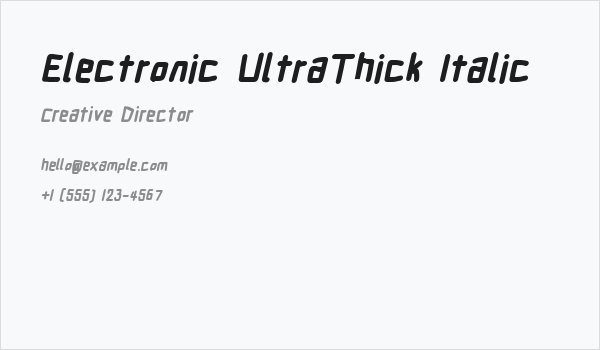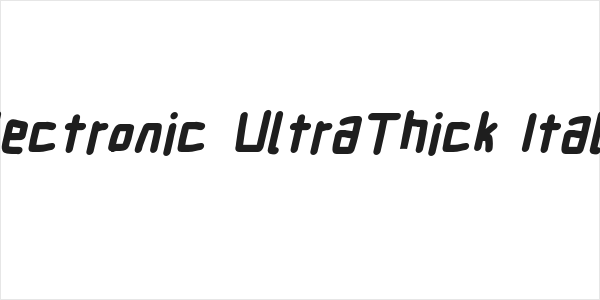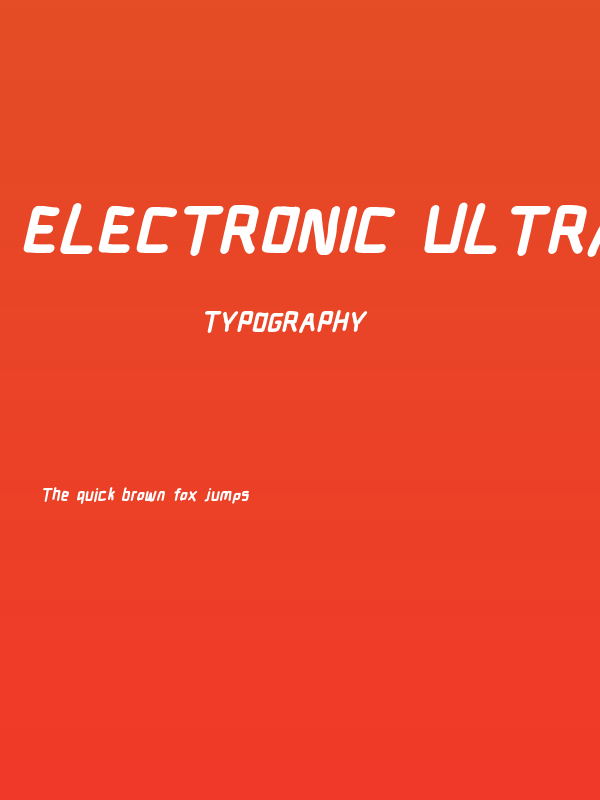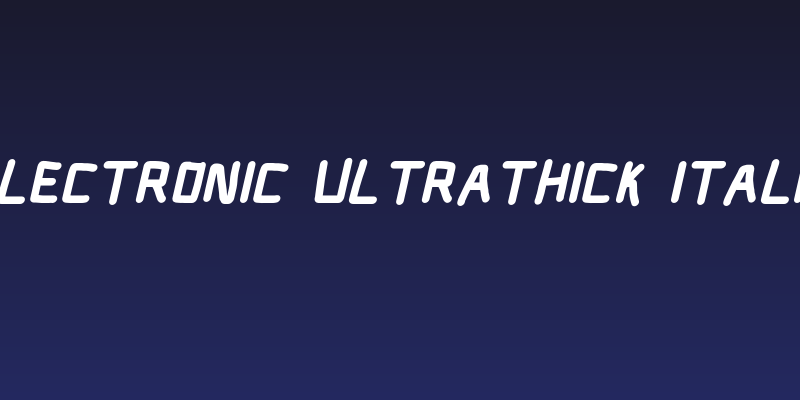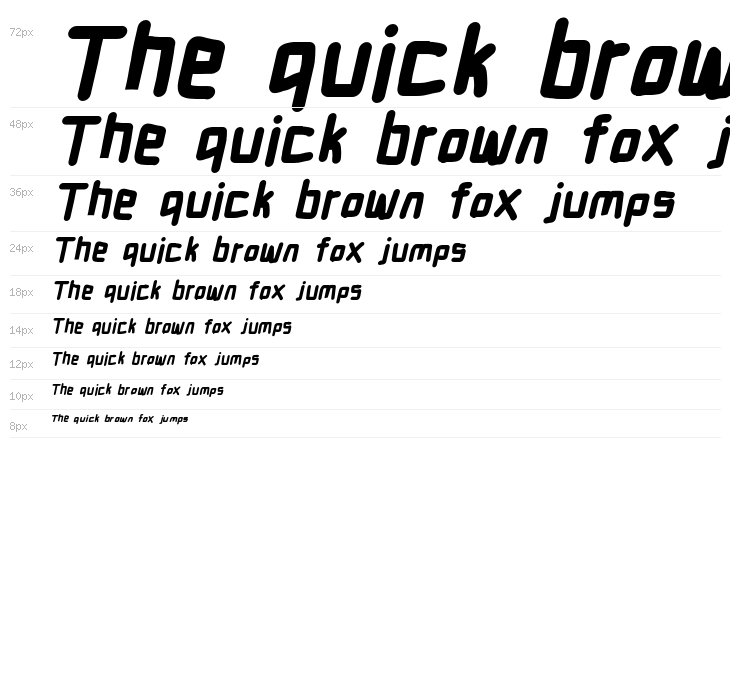
Electronic UltraThick Italic Font
Electronic UltraThick Italic Description
This font features a bold, ultra-thick design with a distinct italic slant, giving it a dynamic and modern appearance. The characters are rounded and smooth, creating a sense of fluidity and movement. The uppercase and lowercase letters maintain a consistent style, with the uppercase being slightly more angular. The numbers and special characters follow the same bold and italicized style, ensuring uniformity across all glyphs. The font's thick strokes and italic slant make it highly legible and eye-catching, suitable for various design applications.
| Proposed Projects | Ideal for sports branding, dynamic posters, modern advertising, and tech-related designs. |